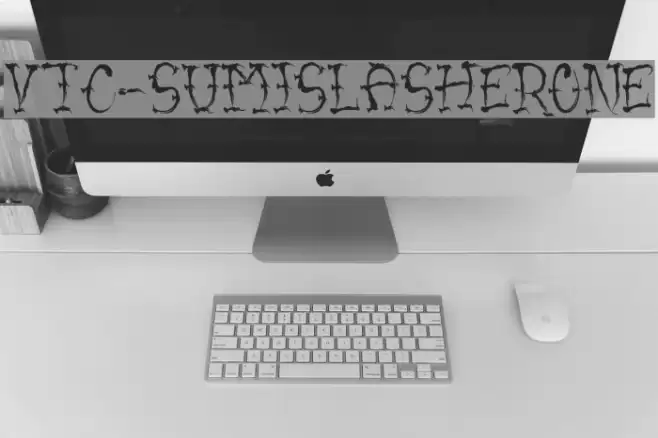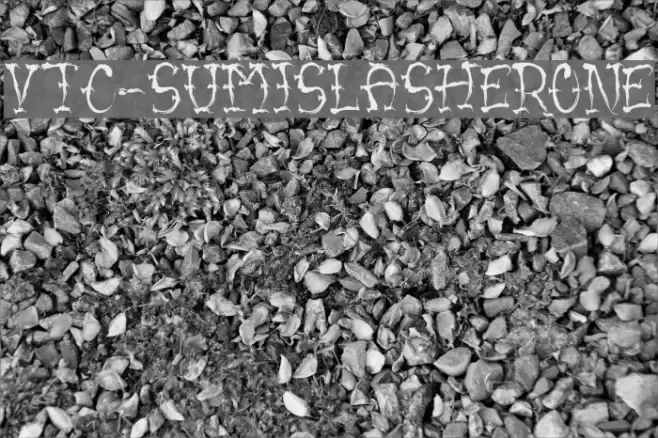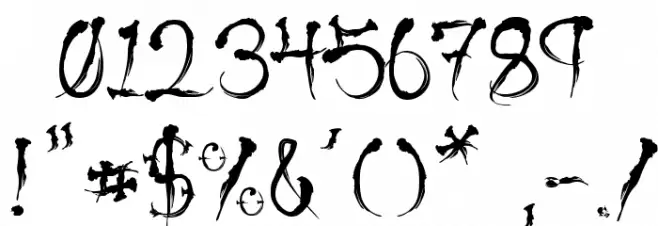
VTC-SumiSlasherOne Font
VTC-SumiSlasherOne Description
This font features a highly decorative and edgy design, characterized by sharp, thorn-like extensions and irregular strokes that give it a wild, untamed appearance. The letters are bold and dramatic, with a distinct gothic influence that makes them stand out. The uppercase and lowercase letters maintain a consistent style, with the numerals and special characters following suit. The overall look is chaotic yet artistic, making it suitable for projects that require a bold statement. The font's unique style is perfect for creating eye-catching headlines or logos that demand attention.
A bold, thorny, and gothic-inspired decorative font with sharp, irregular strokes from Uncategorized fonts.
- Proposed Projects: Ideal for album covers, horror-themed posters, edgy branding, and unique logo designs.